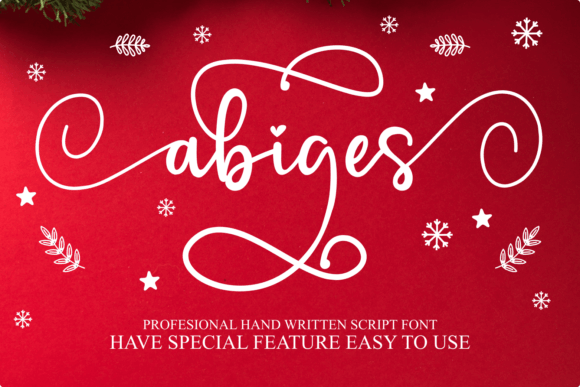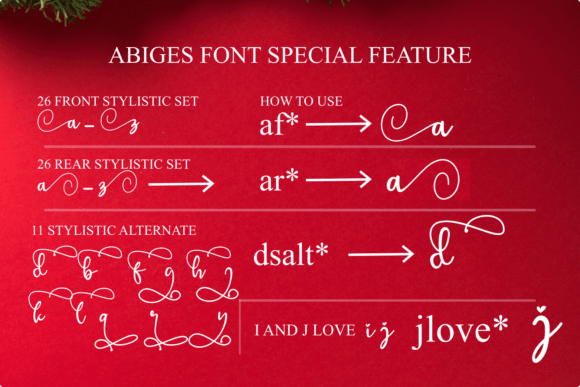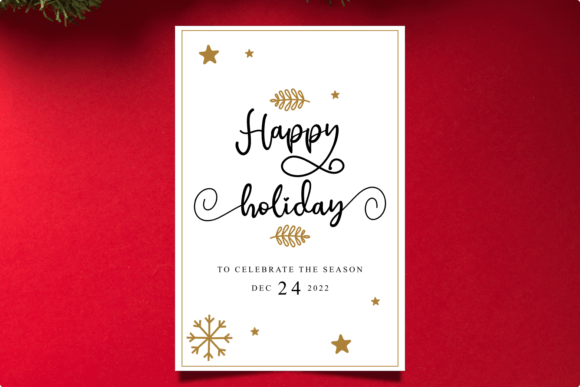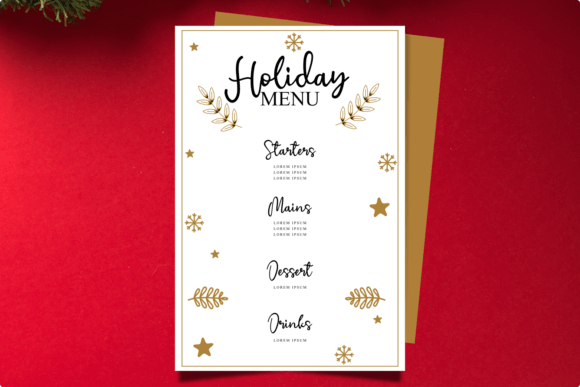
Abiges Font
About Abiges Font
Abiges emerges as a romantic and sweet calligraphy typeface, where characters gracefully dance along the baseline, adding a touch of elegance to your design endeavors. This font is not merely a collection of letters; it’s a visual symphony that promises to infuse a luxurious spark into any project you set your sights on.
The inherent romance of Abiges becomes apparent as each letter flows seamlessly, creating a harmonious visual experience. The calligraphic strokes exude a sense of warmth, making it a perfect choice for projects that require a romantic and intimate ambiance. Imagine the font gracing wedding invitations, where every swirl and curve tells a love story, setting the tone for a celebration filled with elegance.
The sweet and delicate nature of Abiges extends its charm to a variety of design projects. Whether you’re crafting invitations, designing branding materials, or working on any creative endeavor, this font becomes a key player in elevating the aesthetic appeal. It’s not just a typeface; it’s a design element that transforms the ordinary into something extraordinary.
What sets Abiges apart is not just its romantic allure but also its versatility. It’s a typeface that seamlessly integrates into different design contexts, adapting effortlessly to various themes. Its ability to add a luxury spark to your projects is unparalleled, making it a go-to choice for those who seek to infuse a sense of opulence and sophistication.
The font’s PUA encoding adds a layer of accessibility, allowing you to effortlessly access all the glyphs and swashes. This feature enhances the user experience, making it easy for designers to explore and integrate the diverse elements that Abiges offers. It’s a font that empowers creativity, inviting you to play with the myriad possibilities it presents.
In the world of design, Abiges is more than a font; it’s a storyteller, a mood-setter, and a catalyst for visual brilliance. Let it be the brushstroke that adds a romantic and luxurious flourish to your creations. Whether you’re a seasoned designer or a novice navigating the world of fonts, Abiges is here to weave its magic and turn your projects into works of art that resonate with romance and sophistication.